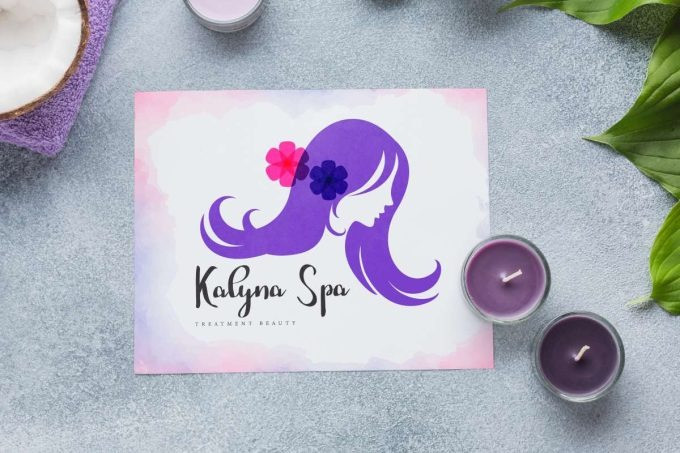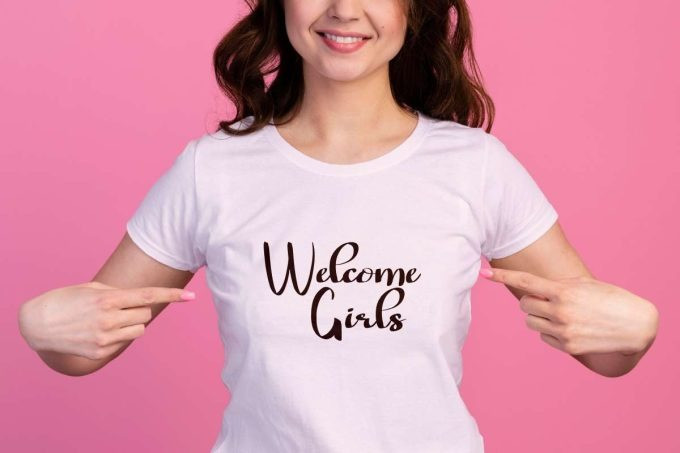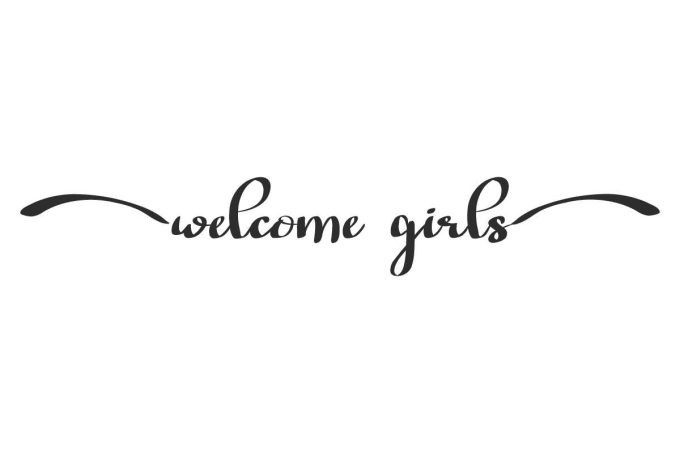
Welcome Girls Font
Welcome Girls Font is a dazzling bold calligraphic font. This font is inspired by the figure of a feminine girl. Its characteristics can be seen from the writing technique that represents it. This will add to the visual beauty of your design, such as brand logo, catalog, cover, invitation, label, packaging design, quote, screen print, signage, stationery, sticker, title, website, and much more!
Welcome Girls Font comes with a full set of Uppercase and Lowercase Basic Characters, Number, Punctuation, Symbol. Also with the addition of Ligature and Swoosh characters to make it bond perfectly and give aesthetic value to the font. Use this for your business industry such event organizer, fashion, florist, nail art, printing, publishing, skincare, spa salon, wedding, etc.